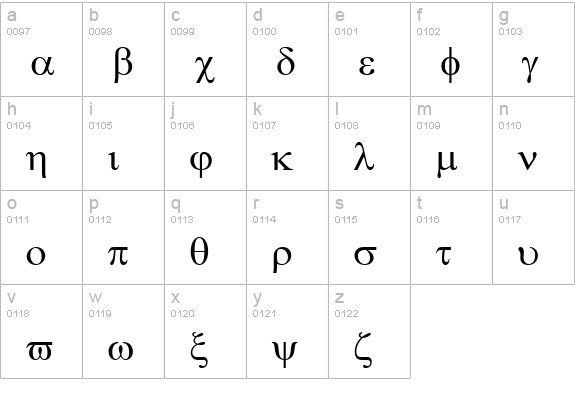
The Symbol font is a versatile and unique typeface that offers a wide range of symbols, icons, and special characters perfect for adding a creative touch to your designs. Whether you are working on a project that requires mathematical symbols, arrows, or decorative elements, the Symbol font has got you covered. This font is not only visually appealing but also highly functional, making it a valuable addition to any designer's toolkit. The best part? The Symbol font is available for free download at FontsMarket.com, allowing you to easily access this fantastic resource without any cost. With its elegant and modern design, the Symbol font is suitable for a variety of design projects, from logos and branding to web design and print materials. Don't miss out on the opportunity to enhance your designs with this amazing font – download the Symbol font today and take your creative work to the next level!